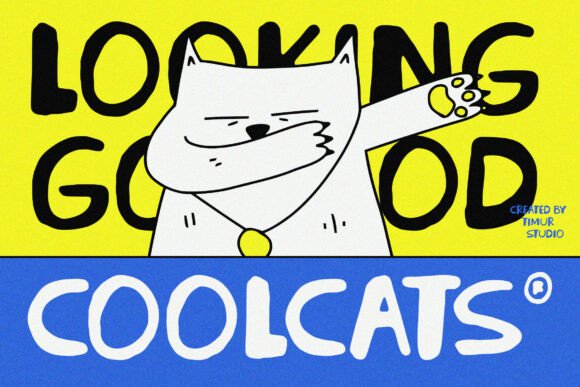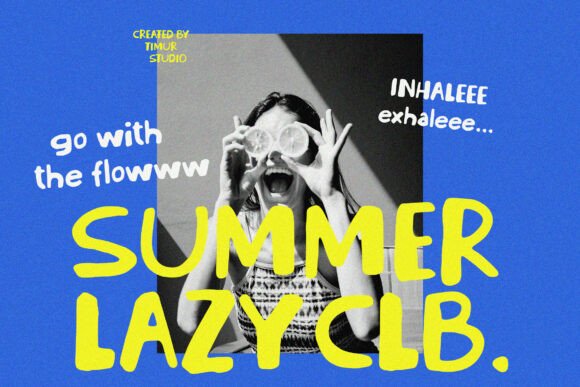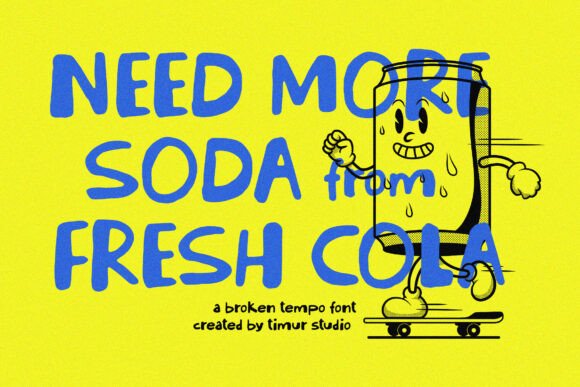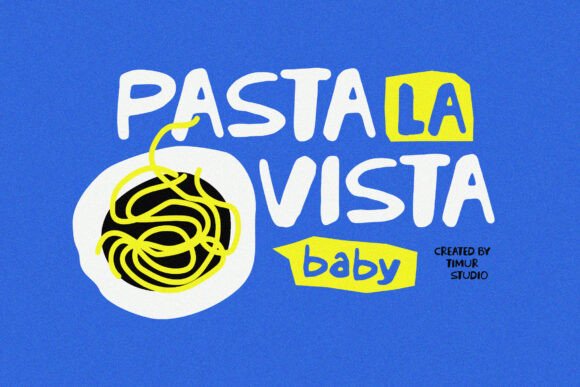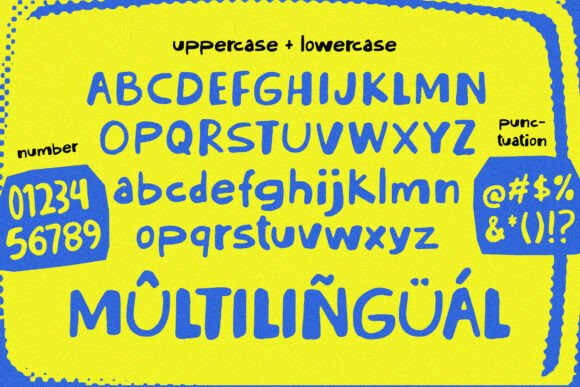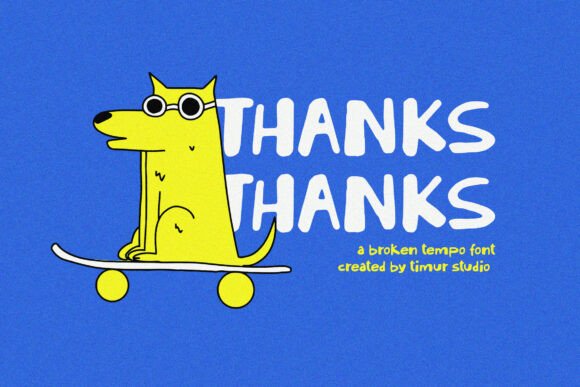
Introducing Broken Tempo: A Quirky, Ugly Display Font with Vintage Charm
Are you tired of using the same old fonts in your designs? Do you want to add a touch of personality and whimsy to your projects? Look no further than Broken Tempo, a quirky, hand-drawn display font that’s sure to capture attention. Inspired by vintage player-piano rolls, Broken Tempo brings a lively, offbeat rhythm to any design, making it perfect for posters, album covers, and more.
The Inspiration Behind Broken Tempo
Broken Tempo’s unique design is rooted in the nostalgic charm of vintage player-piano rolls. These rolls, which were used to play music on player pianos in the early 20th century, featured a series of holes that corresponded to specific notes. The result was a distinctive, perforated look that’s equal parts functional and visually striking. By drawing inspiration from these rolls, Broken Tempo’s creator aimed to capture the essence of a bygone era, while also infusing the font with a playful, modern twist.
What Makes Broken Tempo So Special?
So, what sets Broken Tempo apart from other display fonts on the market? For starters, its hand-drawn design gives it a distinctly organic feel that’s hard to replicate with more traditional fonts. The irregularities and imperfections that come with hand-drawn lettering add a level of character and personality to Broken Tempo, making it feel more like a bespoke solution than a generic font.
Another key feature of Broken Tempo is its quirky, offbeat aesthetic. The font’s irregular rhythms and nostalgic charm make it perfect for designs that need a touch of retro personality. Whether you’re working on a poster, album cover, or any other project that needs to stand out, Broken Tempo is sure to deliver.
Using Broken Tempo in Your Designs
So, how can you use Broken Tempo in your designs? The possibilities are endless, but here are a few ideas to get you started:
- Posters: Add a touch of vintage charm to your posters with Broken Tempo. Its quirky aesthetic makes it perfect for promoting concerts, festivals, or other events.
- Album Covers: Give your album covers a retro makeover with Broken Tempo. The font’s nostalgic charm and playful irregularities make it a great fit for music projects.
- Logos: Use Broken Tempo to create a unique, eye-catching logo for your business or brand. Its hand-drawn design and quirky aesthetic make it perfect for companies that want to stand out.
Why Designers and Crafters Love Broken Tempo
Broken Tempo has quickly become a favorite among designers and crafters, and it’s easy to see why. Here are just a few reasons why:
- Unique Aesthetic: Broken Tempo’s quirky, offbeat aesthetic makes it a great way to add some personality to your designs.
- Easy to Use: Despite its unique design, Broken Tempo is surprisingly easy to use. Its hand-drawn letters are clear and legible, making it perfect for a wide range of projects.
- Versatile: Broken Tempo is a versatile font that can be used in a wide range of contexts, from posters and album covers to logos and more.
If you’re looking for a font that will add a touch of personality and whimsy to your designs, look no further than Broken Tempo. Its quirky, hand-drawn design and nostalgic charm make it perfect for a wide range of projects, from posters and album covers to logos and more. With its unique aesthetic, ease of use, and versatility, Broken Tempo is sure to become a favorite among designers and crafters.